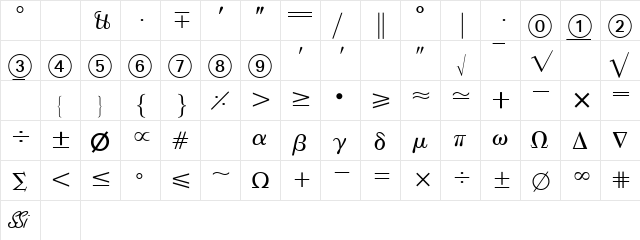
Abacus Four SSi Regular
Design Context for Abacus Four SSi Typeface
Abacus Four SSi is a composed and adaptable typeface that performs quietly and consistently across a wide range of design contexts.